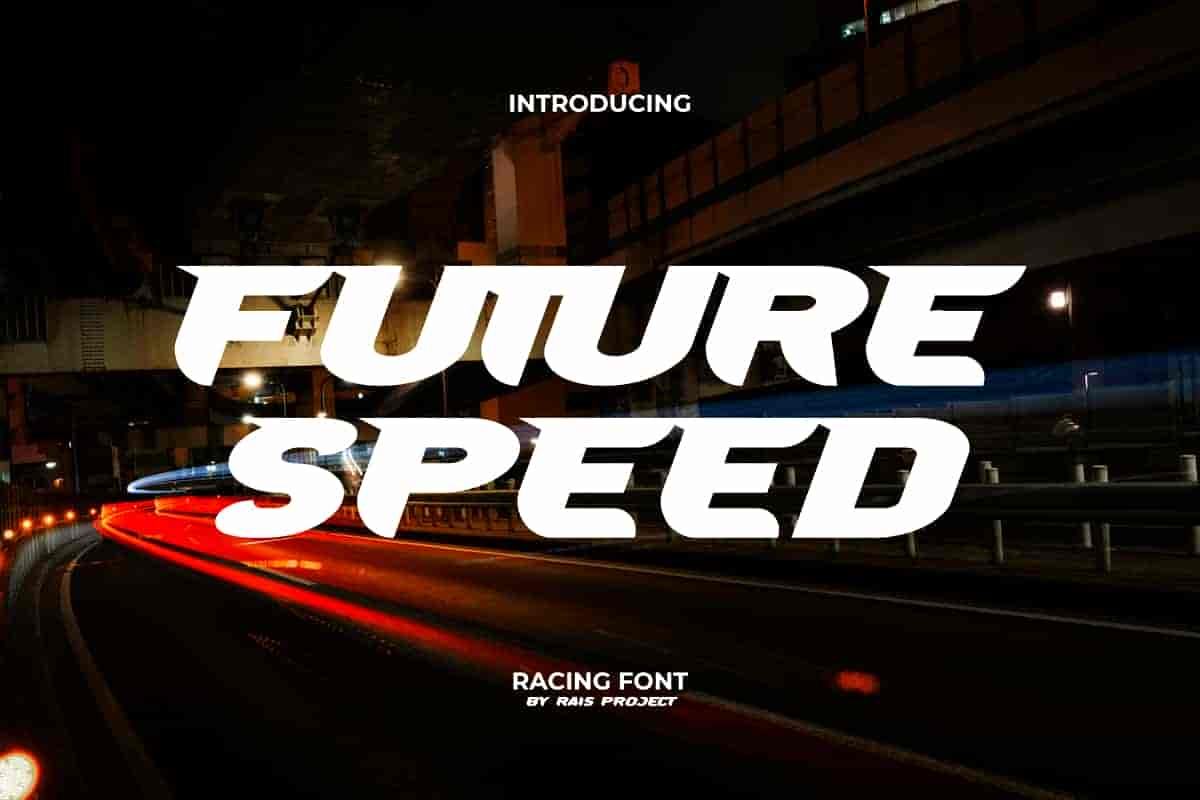
Future Speed Display Font
Future Speed Font is a speedy big racing display font.Use this font now to make your design look powerful eyecatchy!
Future Speed Font is a bold speedy display racing font with big unique special letters.It will be good for any designs, such as advertisement, brand image, custom design, invitation, label, marketing material, poster, product packaging, quotes, signage, website page, and more! You can see the demo font below, input any word you want so you can see what it looks like:
Future Speed Display Font includes a full set of ALL CAPS for Uppercase and Lowercase Letters, Numerals, and large range of Punctuation. This awesome font with a racing vibe will be suitable for various industries, such as automotive, barber shop, cafes, event or festival, fashion, game, photography, printing, publishing, sports, etc. What you get: